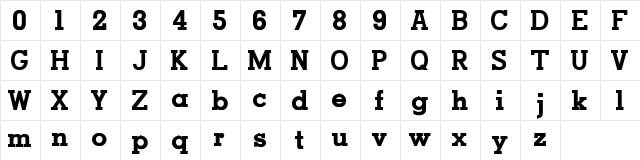
Full-Block-Richardson Regular
Design Context for Full-Block-Richardson Typeface
Full-Block-Richardson offers clean, dependable letterforms without strong stylistic allegiance, making it a practical choice for designers who need flexibility.